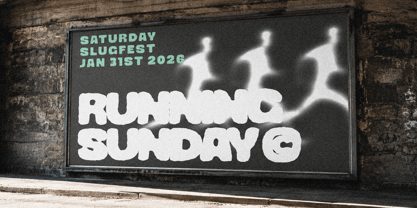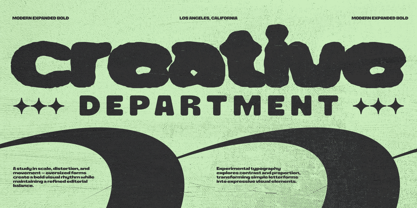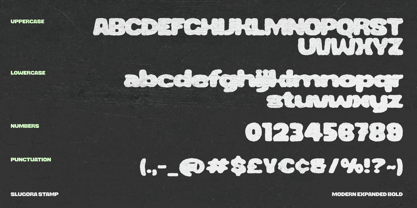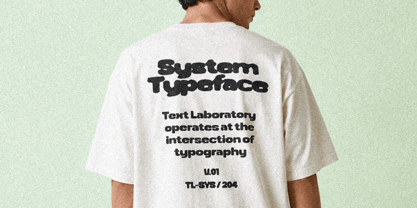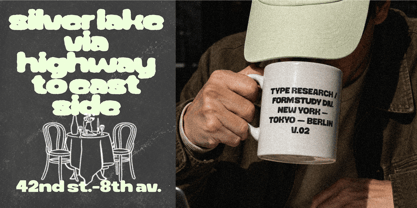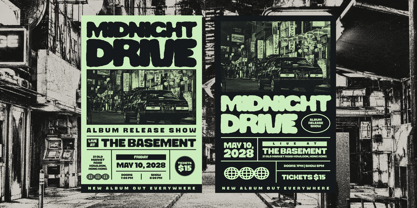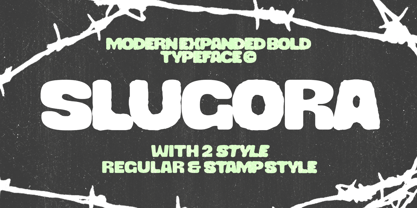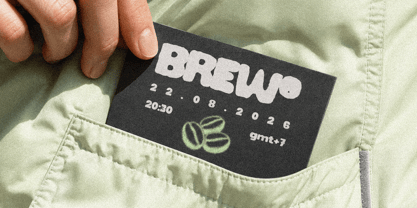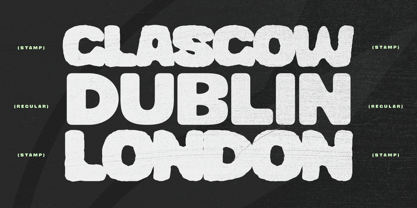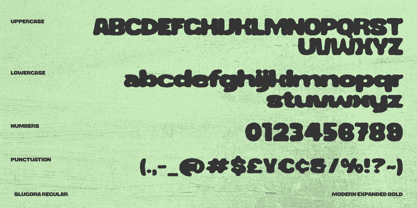
Slugora
Slugora is a bold, bubble-style sans serif duo designed for playful, high-impact display work that requires both a clean digital appearance and a worn, hand-stamped counterpart. The regular cut features thick, geometric strokes with tight, tucked-in counters and soft, bubble-round terminals, resulting in letters that appear heavy and rounded rather than sharp. Its Stamp companion retains the same chunky structure but adds a rough texture to every edge, as if each letter has been pressed by hand with a worn rubber stamp. What distinguishes Stamp is its controlled distress; the rough, hand-inked edges are limited to the outer edge of each letterform, ensuring that legibility is maintained while conveying a worn aesthetic rather than a broken one. When paired with the regular cut, this duo provides two interpretations of a bold voice: a clean, digital-ready version and a textured, hand-pressed alternative. Imagine the regular cut prominently displayed on a snack bag header, with the Stamp version pressed into a vintage badge sticker alongside it on the same package. This contrast between crisp packaging type and roughed-up stamped accents is where this pairing excels. Slugora is ideal for snack and beverage packaging, streetwear and apparel graphics, sticker sheets, badge and logo lockups, kids' product branding, and striking social media headlines. The regular cut also performs well on its own for clean, straightforward display applications where the stamped texture may be excessive.